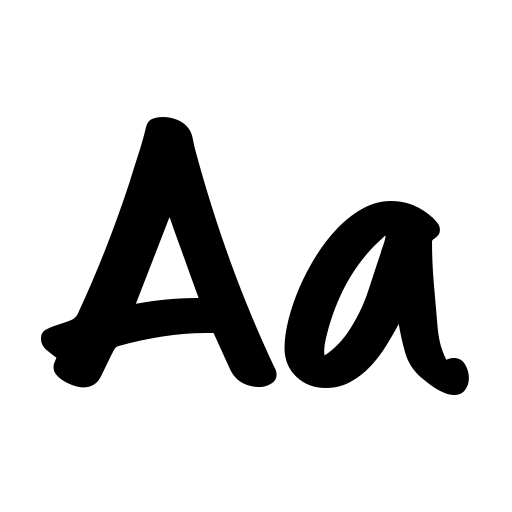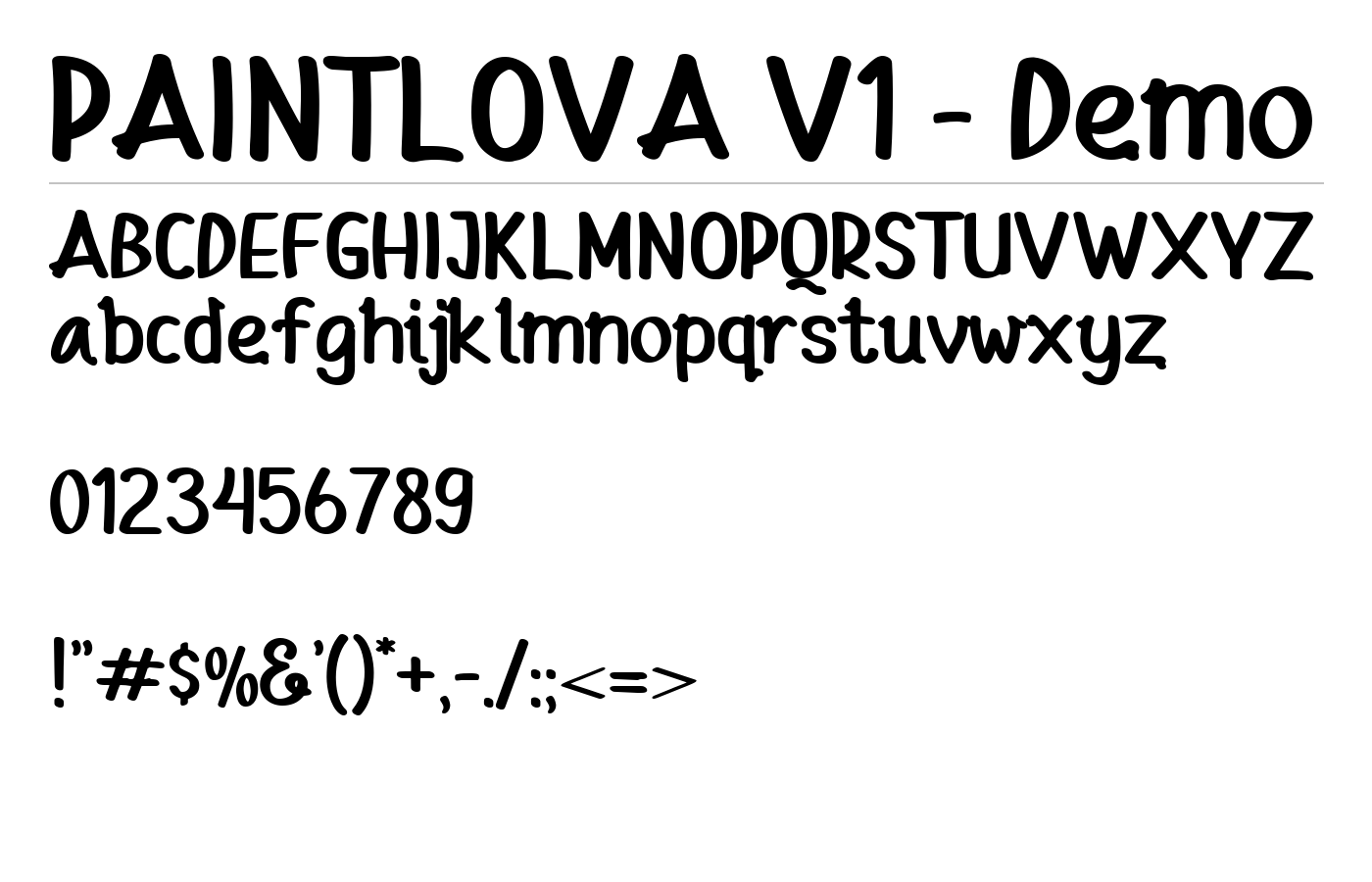
PaintLova Font
PaintLova Font is a cute and casual display font with an incredibly friendly feel. Whether you’re looking for fonts for Instagram or anything else for DIY projects, this font will turn any creative idea into a true piece of art. This free typeface was designed by the talented Galih S. Aji. If you like it don’t forget to check out the full version.